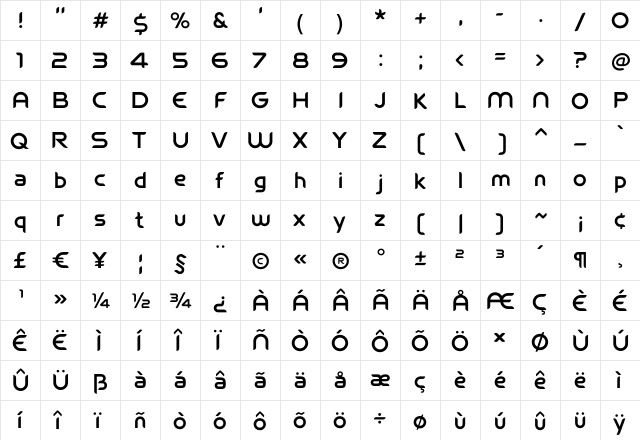
FIFA 2006 Regular Regular
| Designer | FIFA |
Design Context for FIFA 2006 Regular Typeface
FIFA 2006 Regular takes a measured approach to typography — its balanced proportions and neutral character make it a reliable workhorse for both digital and print work.